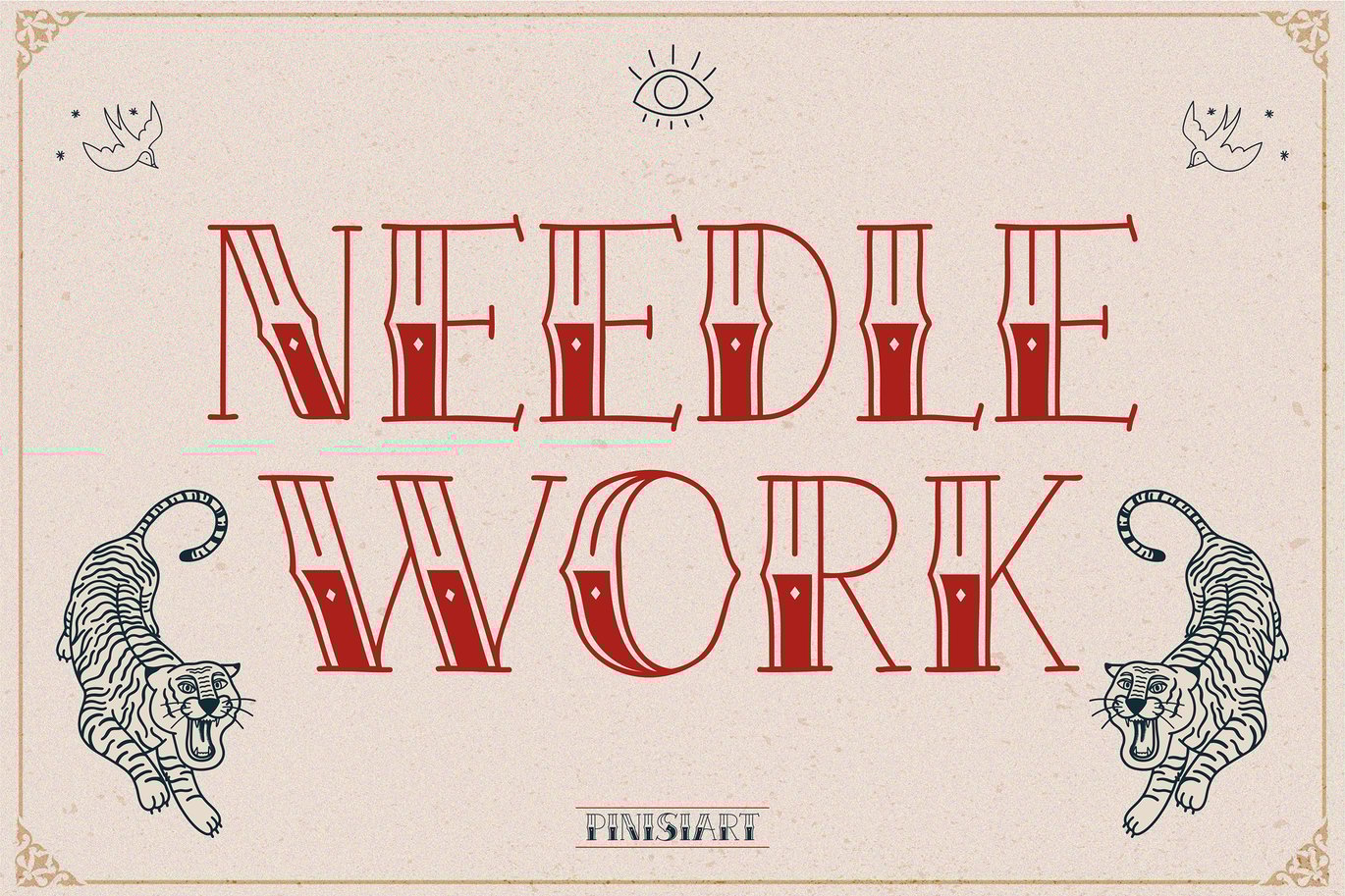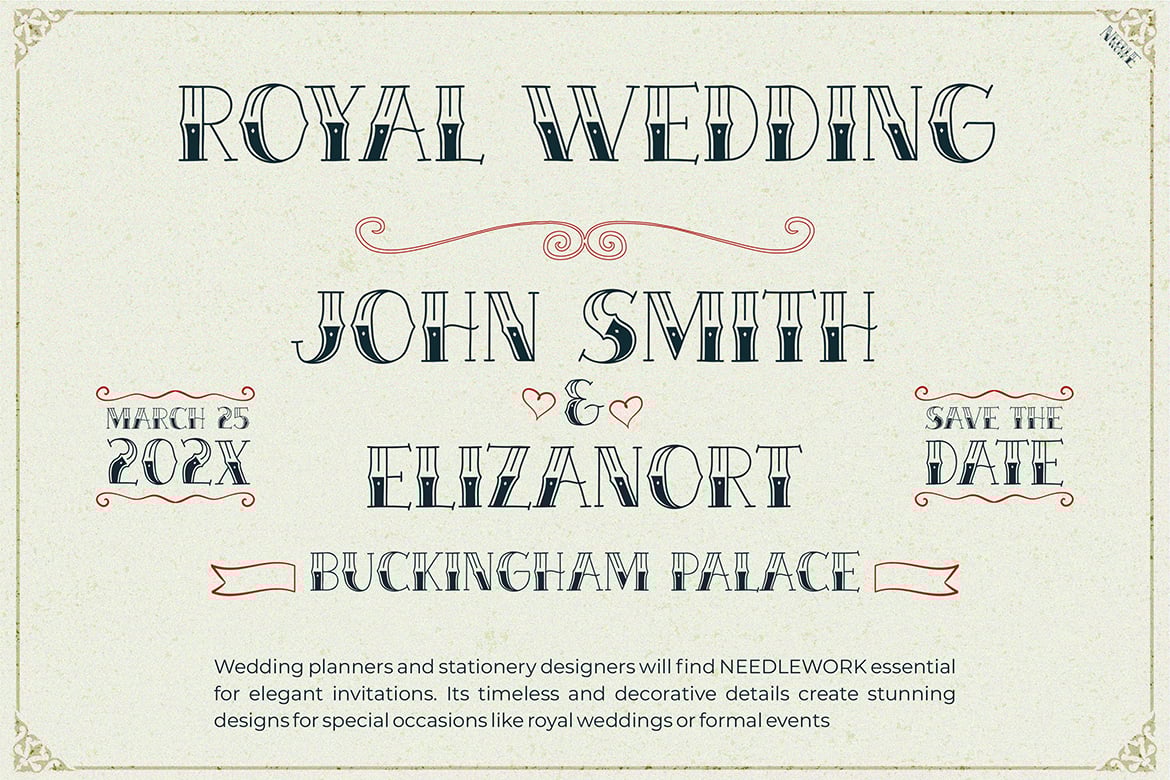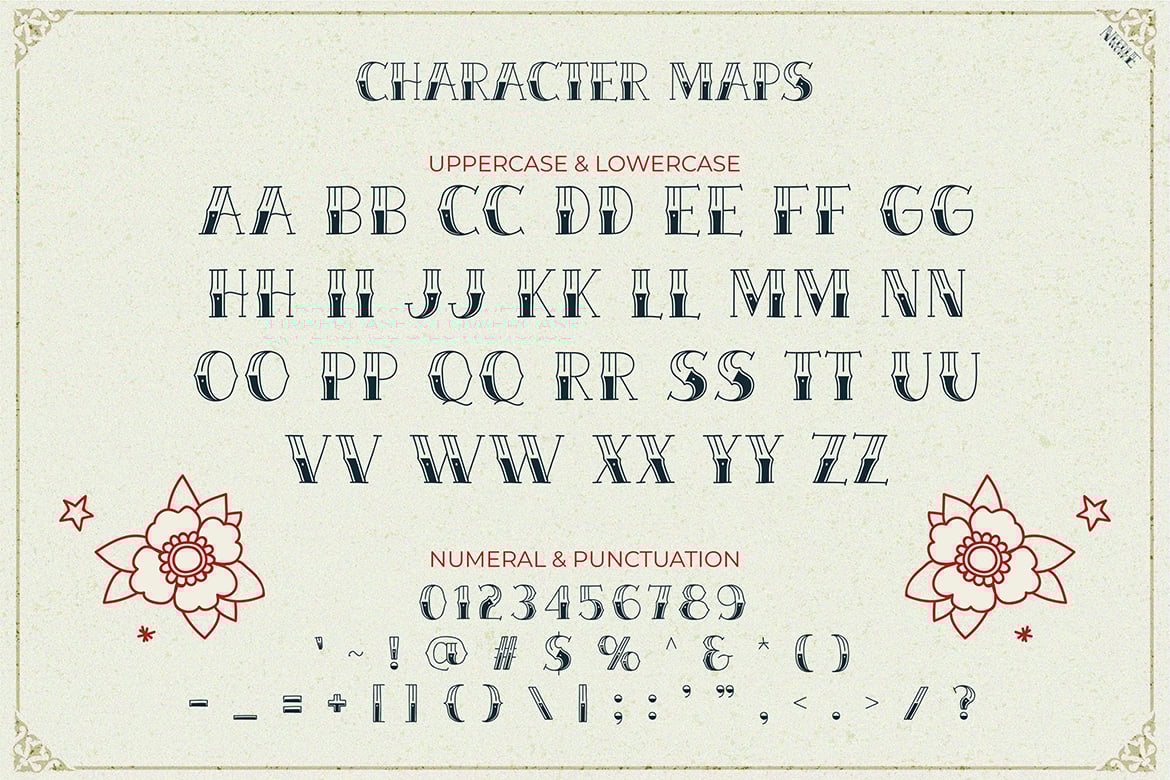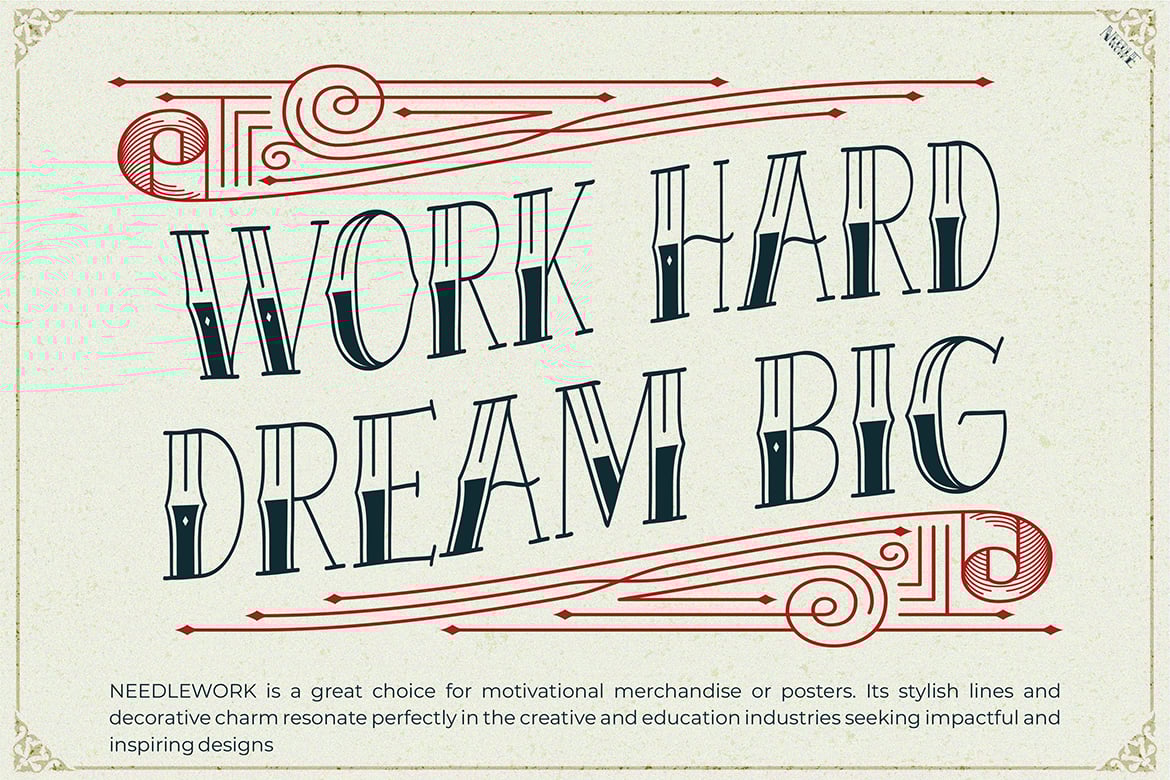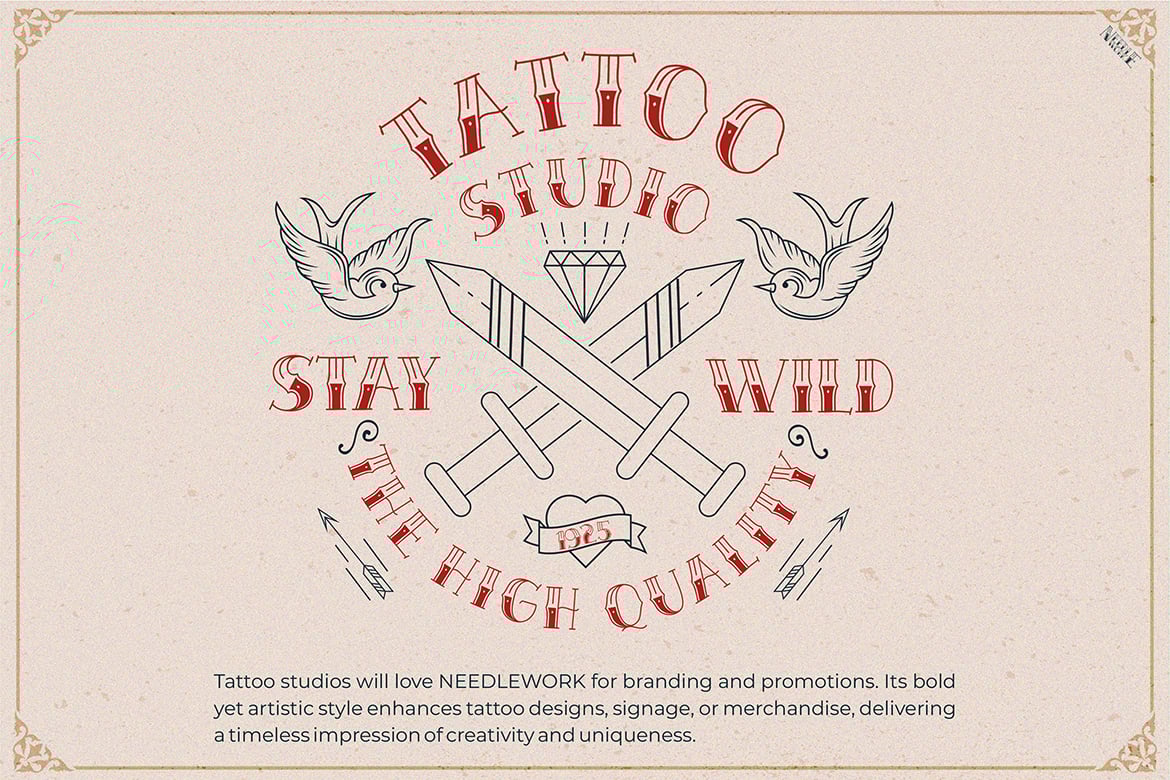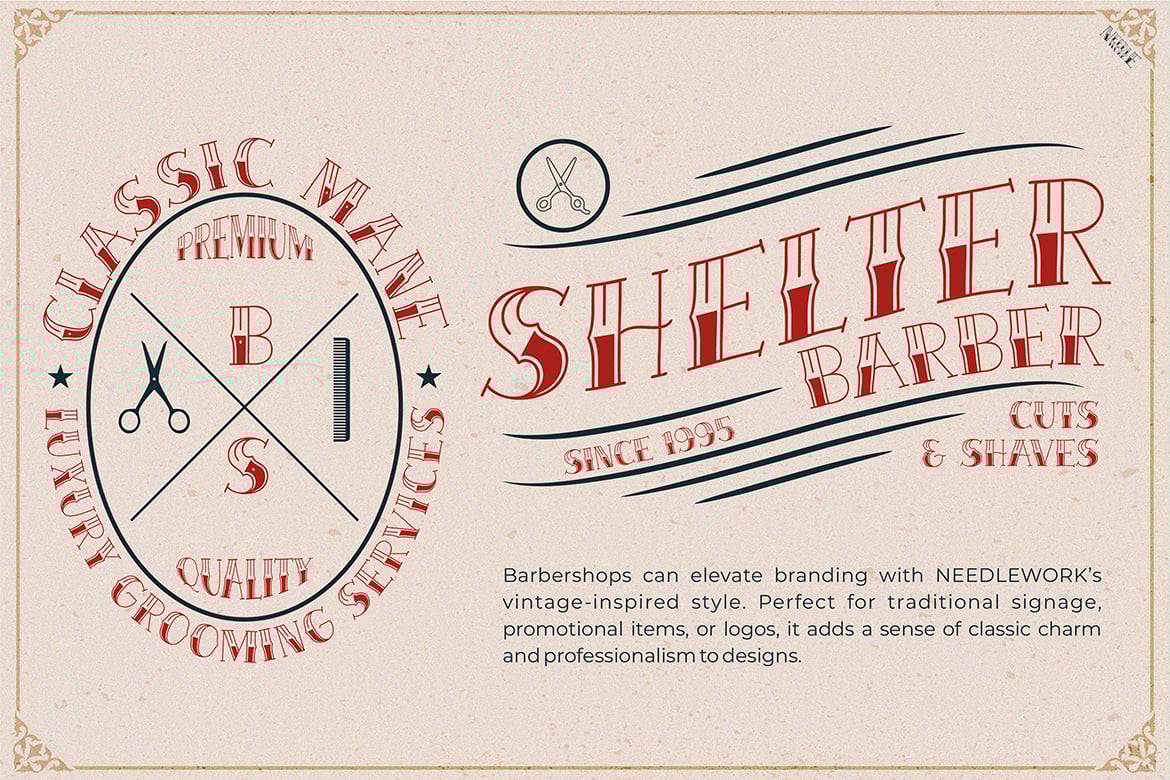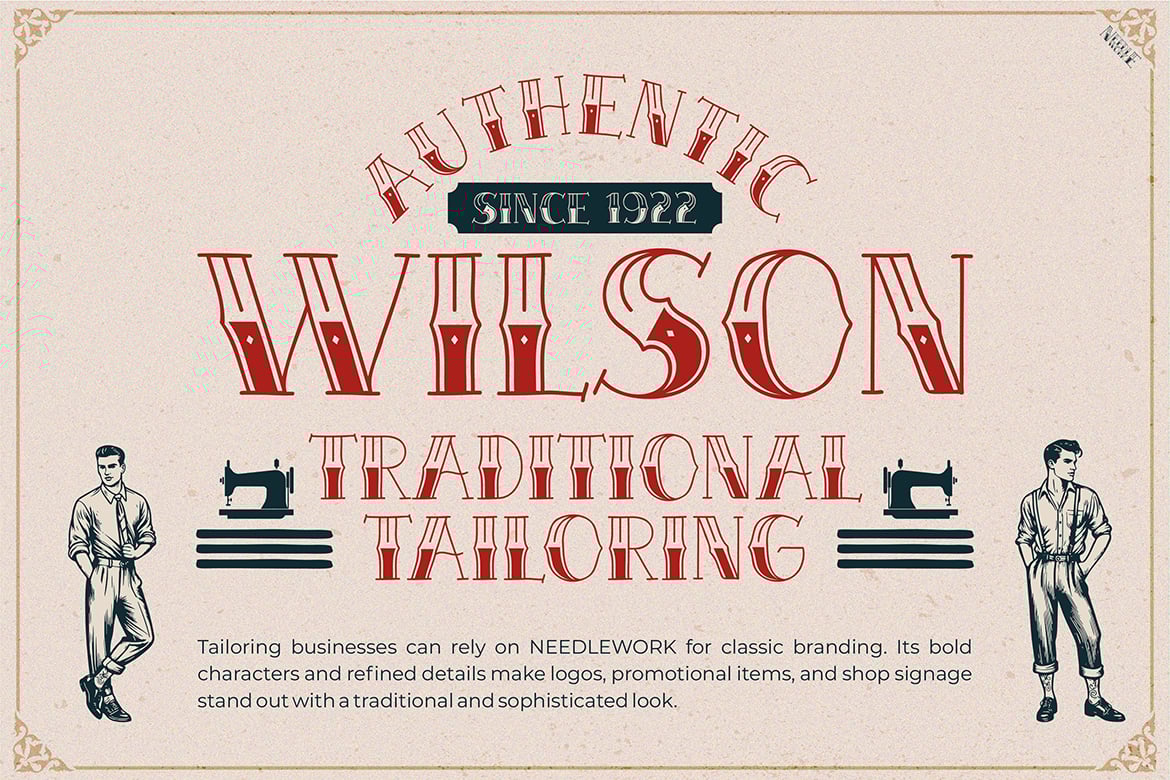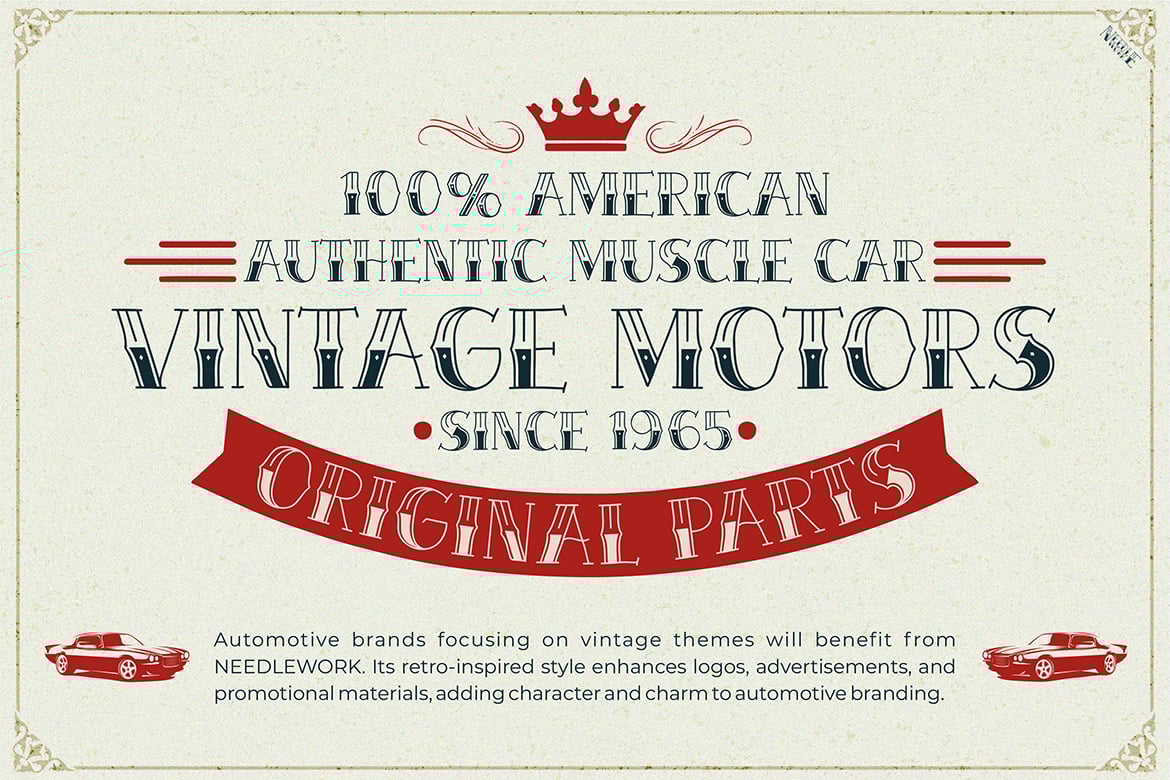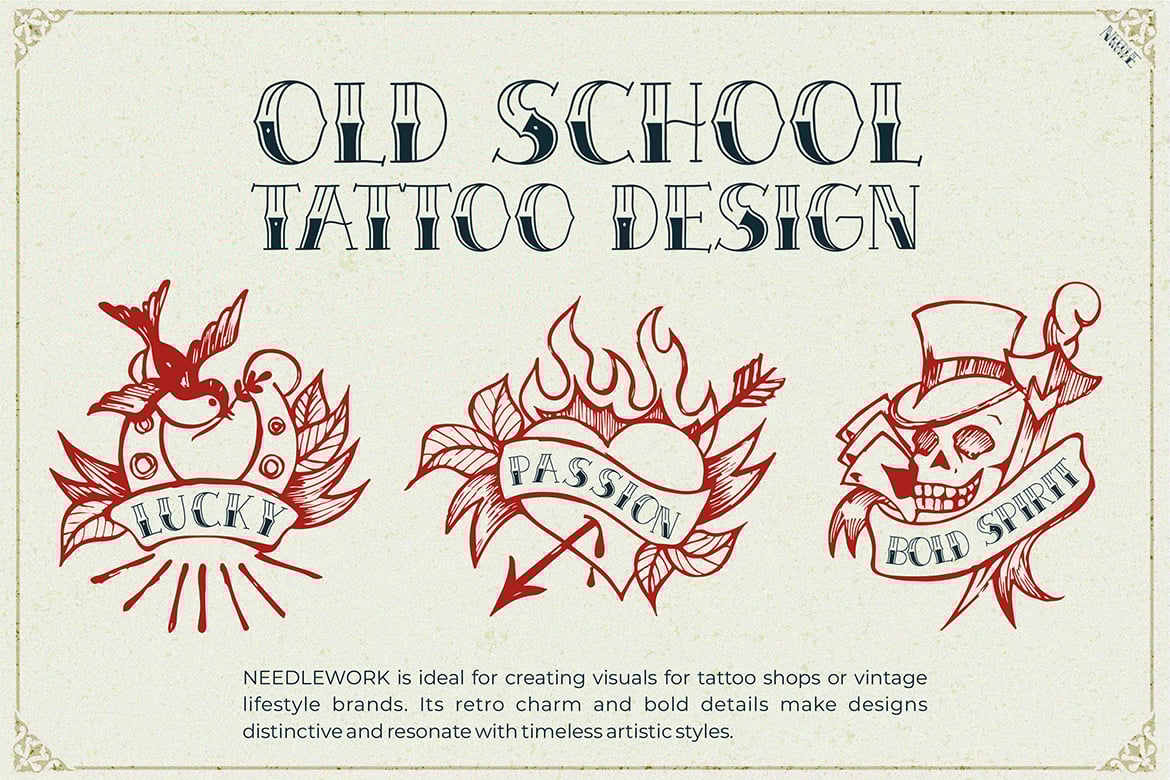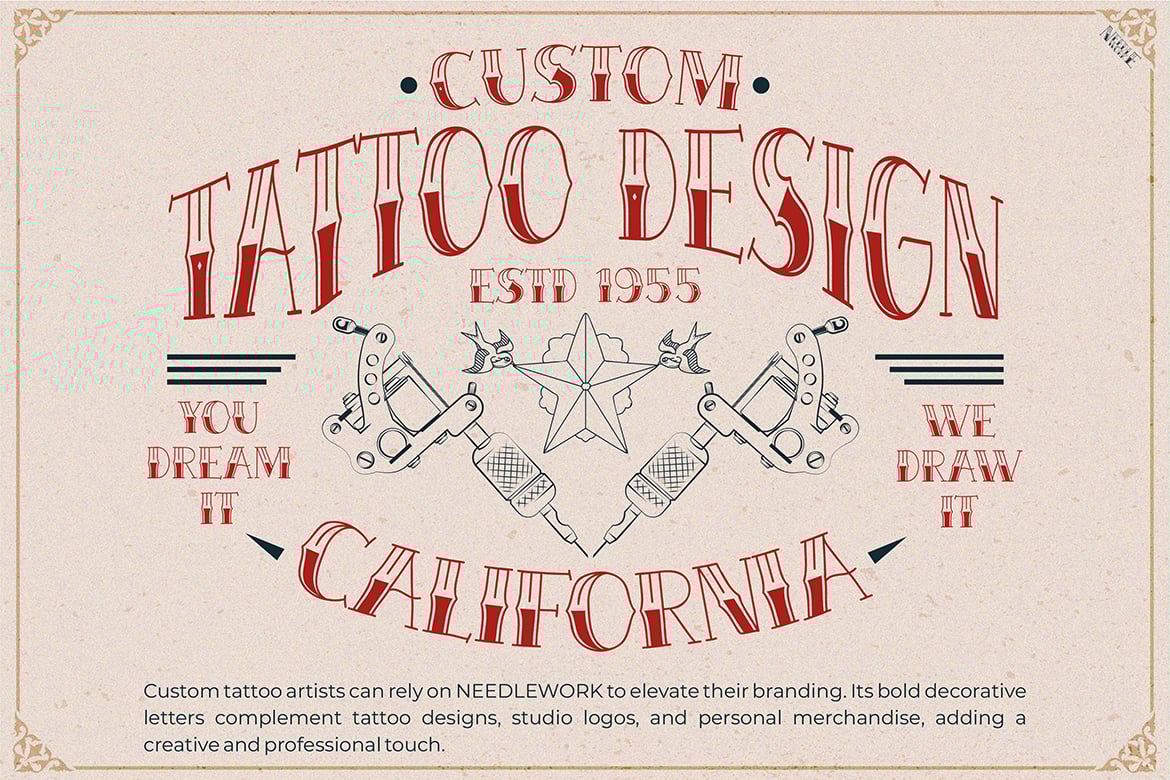
Tattoo Font – Needlework
Needle Work – A Timeless Tattoo-Inspired Script Font
Needle Work is a refined tattoo-style font that blends traditional ink craftsmanship with elegant vintage aesthetics. Featuring intricate curves, delicate flourishes, and a hand-engraved look, this font brings classic tattoo lettering to life. Whether you’re crafting bold tattoo-inspired logos, stylish apparel, or ornate branding, Needle Work delivers a timeless, handcrafted feel.
Perfect for tattoo parlor branding, vintage barbershop signage, custom lettering for tattoo apparel, retro-inspired product packaging, whiskey and craft beer labels, classic motorcycle club designs, old-school tattoo typography posters, hand-drawn logotypes, high-end tattoo theme bar menus, gothic wedding invitations, tattoo flash sheets, alternative fashion branding, music festival promotions, rock band merchandise, and artistic decorative prints.